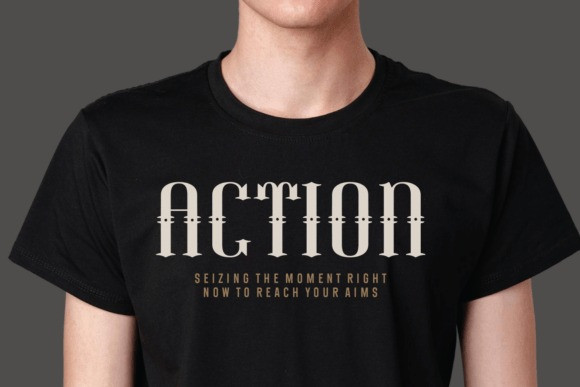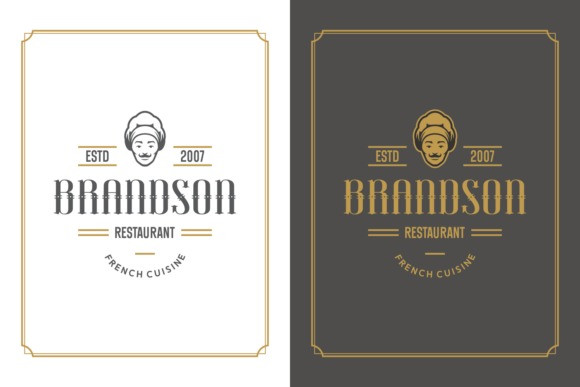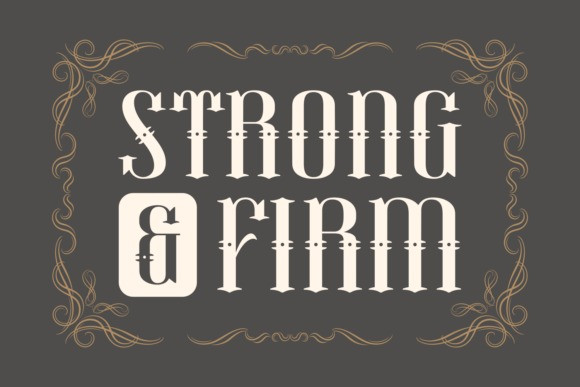
Strong And Firm Font
Strong And Firm Font a captivating blend of classic Blackletter design with a vintage flair. This impeccably clean, artisan-crafted font is versatile, flawlessly gracing any medium – be it the web, glossy magazine pages or comfy cotton of a T-shirt. It adorns greeting cards with an intimate touch, adding intriguing depth to brand designs, while leveling up apparel or product packaging with its undeniable charm. This noteworthy font has an inviting allure for invitations, labels, and posters, asserting an impressive identity on logos or book covers. “Strong and Firm” is not just a font, it symbolizes a trend, responding to contemporary designs with a black, bold elegance that remarkably renders quotes. With “Strong and Firm,” elevate your website with a font that echoes an old-world sophistication meeting modern aesthetic.